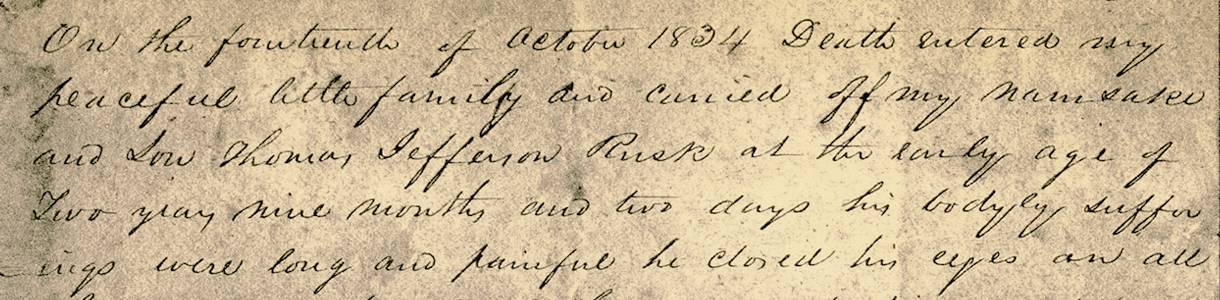
Immediately upon awakening this morning, August 1, I spoke the words “rabbit rabbit” to my dog. I can’t remember how I learned of this superstition—that uttering those two words first thing on the first of any month will assure you good luck for all its days—but I’ve remembered to do it nearly every month for years.
Of course I don’t believe it’s a guarantee of luck. It’s more of a memory test. Deep down I’m more of a rational sort of guy.
That doesn’t mean I don’t believe in magic—there are miracles everywhere. But they come in the form of the births of baby animals, the cries of northern loons, the emergence of plants from seed, or the rare and evocative aroma of petrichor. I don’t do pseudoscience, though. You won’t find tinfoil headwear on my hat rack.
Detail of a letter written by U.S. Lt. Daniel Ruggles from Mexico home to his wife.
The pseudoscience of graphology—a.k.a., handwriting analysis—has been around a good while. Supposedly a trained graphologist can, from simply studying handwriting samples, describe personalities, diagnose mental (or physical) illnesses, even tell the sex of a pregnant writer’s child. No. Nope. Uh-uh. That stuff’s just parlor games.
But having closely studied scores of the letters and journals and diaries of famous (and not-so-famous) people of the past, I do see in penmanship evidence of mood, of age, of temperament. There’s a connection between handwriting and personality. A thoughtful soul might write more neatly. A wallflower might write small. Older hands will tremble more. A hothead might write messily, an egoist large.
Below, for your consideration, is my brief appraisal of the penmanship of a dozen people whom, for one or another reason, I’ve come to know—and whose personalities and handwriting seem to agree. (Click on any image for a larger view.)
Obscure military clerk
Two hundred forty-one years ago, a tiny fraction of the planet’s population knew how to write, and many who did made a living at it—as did the scribe who kept records for the British military at a time of unrest in the American colonies. This particular clerk (whose hand gave rise to Military Scribe) was painstaking, scrupulous, neat, exacting. I imagine a man who spent a lot of time alone at a desk in The Penmanship Zone. Smart, disciplined, tidy. A person who was frugal with ink and paper, and who embraced the mission at hand: of keeping a legible accounting of important matters for future reading.
Timothy Matlack
From historical records we know that Timothy Matlack was a Quaker, an abolitionist, a judge, a soldier—and a master penman whose careful roundhand engrossed perhaps the most famous American document (and inspired American Scribe). He was hired to do the job, a job he clearly took seriously. From his straight, clean, legible script, its compact letterspacing and narrow linespacing, I imagine a serious person, a thoughtful person, a man with strength of mind and strong convictions. Matlack died at 99 years old.
Abigail Adams
Although our first second lady and second first lady had no formal education, her mother (a Massachusetts Quincy) homeschooled her on reading, writing, and ’rithmatic. From her voluminous writings (mostly in the form of letters to her husband, John), it’s clear Abigail Adams was highly intelligent, curious, engaged, insightful, and philosophical. I.e., she was a brilliant thinker, correspondent, confidante. She also had to take care of business back home while her husband was off doing political things. Mrs. Adams’s untidy, disconnected cursive (immortalized in our Abigail Adams font) was clearly dashed off in a hurry, which—along with her creative spelling (not uncommon in those days)—actually makes a lot of sense: here was someone with a message to get across, never mind insignificant details. Her hand suggests a doer, a talker, a communicator, one not so concerned about style as content.
John Quincy Adams
Abigail’s son, John—the sixth U.S. president—was an orator, a diplomat, from youth a traveler (who spoke numerous languages), a politician, a negotiator, an abolitionist, and a famous diarist. For nearly 70 years he kept a daily diary. You can flip virtually through its pages at the Massachusetts Historical Society’s highly engaging website, where right away you’ll notice Adams’s upright, bold, legible, loopy hand (Old Man Eloquent is our interpretation). I imagine John Quincy got some of his communication skills from his mother, but his handwriting seems far more disciplined, more plodding, more firm, more straight-and-narrow. I see some obsessiveness there (nearly 70 years, every day?), and a very slight slant. I see fairness, equality, conscientiousness, formality, and an almost classical attention to detail.
Samuel Clarke
Years ago I found a three-page letter in a local antique shop, a letter written by the pastor of the Congregational Church in Princeton, Massachusetts, appealing for donations for a family whose belongings were lost at sea. (The graceful script, in fact, compelled me to make Schooner Script.) I know of Samuel Clarke, the pastor, only from this single bit of history, now going on 200 years old—but from his handwriting’s consistent slant, its long descenders, its curly loops and airy linespacing, I gather Samuel was careful (i.e., full of care), generous, a little formal, perhaps, but also full of grace and attentive to decorum. I envision sermons partly down-to-earth and partly lofty, with a flourish or two. I can almost hear the music of the choir.
Sam Houston
Hero of the Battle of San Jacinto, first president of Texas, and one of the new state’s inaugural U.S. senators, Sam Houston is one of those larger-than-life characters from history. His handwriting, too, was large (see Houston Pen), with ample space between its lines and characters. Houston seems also to have written swiftly but with a certain grace and aplomb—in keeping with the self-assured leader that he was. (He’s the only person who served as governor of two states, Tennessee and Texas.) His script is forceful, declarative, almost principled. It’s no surprise, perhaps, that he was a friend (and blood brother) of America’s natives when many of his fellow Texans wanted to drive them out of the territory—or that, in vain, he opposed secession, while Texas joined the CSA. And it might be said he also wielded a noble pen.
Thomas Jefferson Rusk
I modeled Texas Hero, our first historical penmanship font, after the handwriting of Thomas J. Rusk, unquestionably a heroic early Texan. I chose his hand because it was typical of the period, comparatively legible, not too fancy or plain. Similarly, Rusk himself seemed regular, dependable, and sober. He moved his family from South Carolina to Mexican Texas, joined his fellow settlers in opposing Mexican hostility, fought bravely under Houston at San Jacinto. Rusk served as the new republic’s first Secretary of War, got more votes than Houston as one of the new state’s first two senators, carried on through various personal losses until the end—when illness and his wife’s death drove him to suicide. A good font, a good man.
Mirabeau B. Lamar
Perhaps the most popular face in our “Texas Heroes” collection, Lamar Pen is an interpretation of the stylish hand of a man with a stylish name, Mirabeau Buonaparte Lamar. Lamar grew up in Georgia as a reader and writer, a poet and newspaper man. He entered politics at an early age—but then lost his wife and brother, and set off to see the world to assuage his grief, arriving in Texas just in time to join Houston and Rusk at San Jacinto. He, too, fought bravely (famously even coming to the rescue of Rusk) and ended up first vice president under Houston. From there things went south, though, as he and Houston clashed on several matters: he ordered attacks against the Cherokee and Comanche, resulting in the massacre of women and children, and opposed the annexation of Texas by the United States. I read in Lamar’s strong, if stylish, hand a man both bossy and emotional, full of righteousness, used to getting his way—albeit someone who also valued higher education. (He is credited for allotting land for school development statewide.)
Emily Austin Perry
As you might gather from her eponymous font, Emily Margaret Austin Bryan Perry—sole heir of her brother Stephen F. Austin—was a brave, determined, spunky, busy pioneer woman. She was also one of the richest women in Texas, and plenty adept at managing her ample fortunes (never mind that men had to sign all contracts, and it’d be generations until women won the right to vote). From her small, distinctive script, which made good use of the margins of a page, you might gather she was frugal, thrifty, and meticulous. Spelling didn’t matter as much as accuracy and clarity. Traveling with her daughter, Mrs. Perry wrote many a missive home to Peach Point Plantation, essentially passing along fresh gossip and listing chores she wanted done. But she was reportedly a beloved matriarch to family and servants (i.e., slaves). And it’s not hard to find in her chatty scrawl a mother hen.
Frederick Douglass
Orator, statesman, abolitionist, Frederick Douglass stands among the most distinguished of Americans. His gift of words, of communicating grand ideas and fostering great social change, is surpassed by few. As you might gather from his handwriting (replicated in Douglass Pen)—a neat, balanced, legible, utilitarian hand. You can see from the even spacing, from the letterforms dense but clear, that here was a person who placed importance on each sentence. The pace of the writing seems even, not rushed, but steady—stately, even. The script seems fair and controlled, neither tentative nor dashed off in anger. Here was someone who placed value on the written word (as he also did photography), and who expected his own to be read and heard and thought about. As they are still, nearly two centuries after he was born a slave on the Chesapeake Bay.
A. Leslie Willson
A. Leslie Willson (my father, diary entry, 1946).
Much closer in time—just 70 years ago—a young man named Leslie Willson kept a daily diary. Maybe not as obsessively as John Quincy Adams, but nearly so. His legible Palmer Method cursive has a consistent slant, with open loops and pointy “p”s. Even if you ignore the words, you can see a sort of artistic evenness in this handwriting style; there’s a clear attention to stroke and placement. The script easy to read and pleasant to look at—important factors when your mission is communication. It’s what you might call “nice handwriting.” This man was a nice man and a communicator. A writer, a poet, a teacher, a translator—and one who wrote pretty much exactly the same on into his 80s. I know, because Leslie Willson was my father. (Dad thought it a hoot that I modeled Professor after his hand.)
Jeanne Willson
Jeanne Willson (my mother, letter from 1993).
Finally, here’s a sample of the handwriting of my mother, then in her late 60s. Mom was an inveterate letter writer, a correspondent extraordinaire. (John and Abigail Adams were among her heroes.) In fact, her handwriting looks a little larger than usual here: she filled pages of smallish stationery with compact lines of her distinctive curly script, although these seemed to loosen up as she grew older. They used to be straighter, too—you can see the sort of ups and downs of age. Mom’s handwriting, while meticulous, is not as legible as my dad’s. (I remember as a kid being unable to read her signature.) But it seems to be that way to encourage study, to ask for a commitment of time and attention. Perhaps written by a quiet-voiced person with a lot of big things to show and tell and say. The script, perhaps, of a historical librarian. (And my mother was a very good one.) I have no plans to make a font of it—perhaps because I love this handwriting most of all.
Miscellanea
» Handwriting in America: A Cultural History. (Penmanship used to be taught differently, depending.)
» Pen to Paper. A collection of the handwriting from the Smithsonian’s Archives of American Art.
» The Nuclear Regulatory Commission gets rid of a 54-year-old handwriting rule…
» …but handwriting ain’t history yet—witness a Bengaluru-based calligraphist’s love of the pen.
» If computers have ruined your handwriting—can it be saved?
» Not everyone hates the idea of writing by hand. (“That’s neat. I’d like to try that someday.”)
» How about calligraphy and crumpets? Handwriting and wine?
Tags: 19th century, Abigail Adams, American Scribe font, antique penmanship, Douglass Pen font, Emily Austin Bryan Perry, Emily Austin font, graphology, handwriting analysis, handwritten letters, historical letters, Houston Pen, John Quincy Adams, Lamar Pen, Mirabeau B Lamar, old handwriting, penmanship, Professor font, Republic of Texas, Sam Houston, Schooner Script, Texas Hero font Posted in Cursive, Graphology, Historical Figures, Old Letters, Penmanship, Ruminations, Science, Specimens | No Comments »
Tuesday, March 8th, 2016
The Palmer Method of cursive script.
I have my hand, and I have my pen. That’s it. —Rev. Robert Palladino
A few days ago I listened to a fascinating Freakonomics Radio podcast called Who Needs Handwriting? In exploring the question of its title, the episode features an interview with Anne Trubek (@atrubek on Twitter), a writer, editor, and former professor who knows a lot about writing by hand. Trubek, who is author of the forthcoming The History and Uncertain Future of Handwriting, essentially argues that kids don’t need to learn penmanship anymore.
It all started, Trubek says, when her son began having problems in second grade—strictly because of his poor handwriting skills. So she wrote an article for Good magazine with the bold and declarative title Stop Teaching Handwriting. It drew a lot of interest.
The Gregg Method of shorthand.
And she has a point: young people of today might well go far in our technology-driven world without so much as ever touching a pen. What use is it for us to continue to embrace what was originally a strictly utilitarian skill out of some romantic sense of self, a part of our individuality?
Then again, the Freakonomics podcast goes on to tell us, research shows that students who take notes by hand recall a lot more of a lecture than those who merely transcribe what’s said via keyboard. So should we perhaps be reviving shorthand (a skill my father practiced, much to my childhood incredulity and awe)? Not so much, turns out—it’s a lot closer to straight keyboarding.
Still and all, cursive script appears to be on the way out—other than as a fine art form. Fewer people over time will be able to read engrossed old documents. Who among us these days, after all, can interpret the early hand-scribblings of, say, a Sumerian skilled at cuneiform?
Rev Robert J Palladino (at Reed College).
On the other end of the handwriting spectrum, you have a celebrated scribe like Rev. Robert J. Palladino, who died a couple weeks ago. Palladino was a Trappist monk when he began learning the skills that made him a master calligrapher who, at Reed College, influenced Apple co-founder Steve Jobs’s design of the Macintosh computer. Jobs credited a Palladino calligraphy course he audited with helping inspire the whole idea of digital typography.
“[The Mac] was the first computer with beautiful typography. If I had never dropped in on that single course in college, the Mac would have never had multiple typefaces or proportionally spaced fonts.”
In a delicious twist of irony, of course, a master with a pen helped further our mass migration over to the keyboard. But there’s something to be said for Father Palladino’s own unwired life—replete with its long periods of thoughtful silence—and his having never once used a computer in 83 years.
[Hang on, time to check Facebook—brb.]
In keeping with my overarching theme here (i.e., handwriting as a sense of self), I’d like now to share another old handwritten document I’ve used as source material for a font I’ve designed. Below are page scans and a transcription of a two-and-a-half-page letter written 18 September 1825 by Samuel Clarke, then pastor of the Congregational Church of Princeton, Massachusetts, seeking donations for the victims of an accident at sea. Inspired by Clarke’s extremely distinctive penmanship, I designed Schooner Script back in 1996. [Note: the boat was in fact a sloop, but Sloop was a script already.]
The Schooner Script letter, page 1.
Princeton Sep. 18. 1825
Christian Brethren,
It is known probably to most of you, that several of our acquaintance and friends, in coming from the State of Maine to this Town, have been exposed to the most imminent danger, and also sustained a considerable loss of property. As their danger and misfortunes have excited much sympathy; and as it is believed to be a Christian duty to do something for their relief, it may be proper, for the correct information of all, to make a short statement of the peril to which they were exposed, and the extent of their loss.
On Saturday the 10. inst, at 12.o.clock, Messrs How, Fay and Cobb with the wives of the two last, and eight other persons, sailed from Camden for Boston in the Sloop Governor. Their passage was favourable until about 8.o.clock on Saturday evening, when the Sloop was struck by another vessel which was apparently in distress, and whose fate is not known. The Sloop was so much injured by the unknown vessel, that she very soon filled with water, which, communicating with lime in the hold, caused her to take fire. Being unable, by the greatest exertion, to save the Sloop, the Captain with his men and passengers was obliged to abandon her, and consign themselves to a small Boat only thirteen feet long and about five wide. our friends were compelled so hastily to leave the Sloop, that they had no time to secure their trunks and clothing—and had they been even able to do this, the smallness of the Boat to which they fled, would not have admitted any additional weight. In this small Boat thirteen feet long, thirteen persons
The Schooner Script letter, page 2.
passed the whole of Saturday night on a boisterous, dangerous sea, some of them destitute of outer garments, and all of them in constant danger of immediate death. It is impossible for us to know, much more to describe their anxiety, their anguish. But a benevolent and merciful Providence watched over, and preserved them, when death appeared inevitable. After having been in this dangerous, distressing situation nine hours, they were discovered on the morn of the Sabbath by another Sloop which immediately came to their relief, and rescued them from impending destruction. In this Sloop they arrived in Boston on Tuesday morning, and on Wednesday were permitted to rejoice in again beholding this their native Town, and receiving the kind welcome and sincere sympathy of their acquaintance and friends.
They desire, with unfeigned gratitude, publicly to acknowledge the goodness and mercy of God which watched over and saved them in the season of extreme peril, which preserved them from the watery element, and which has again restored them to the arms of their brethren and friends—
It may be proper to state that Messrs How and Fay saved their money, with the exception of a small sum lost by Mrs. Fay—but they lost a considerable amount of property in clothing. Our young friends Mr. and Mrs. Cobb lost nearly five hundred dollars, about four hundred of which was in money, and the rest in new and valuable clothing.
There can be no doubt, Brethren, respecting our duty in relation to the misfortune of our friends. While we sympathize with them, we should also assist them in bearing the burdens which a wise Providence has seen fit to lay upon them. It has been suggested by several respectable persons that the easiest and most effectual method of rendering them assistance, would be to request a contribution in each of the religious Societies in this Town on the
The Schooner Script letter, page 3.
next Sabbath. In accordance with this suggestion a contribution will be requested in this place in the afternoon of the next Sabbath, when it is hoped that our charity will correspond with our ability and the necessities of our friends, and manifest for us that we do truly sympathize with them in their sufferings, rejoice in their preservation, and are anxious for their future comfort and happiness—
Samuel Clarke
Pastor of the Congregational Church
in Princeton—
Miscellanea
» Lamentations continue over the decline of cursive—from pen companies, forensic scientists, and autograph collectors.
» Does playing with old-fashioned toys help kids learn better handwriting skills?
» Handwriting analysts go to town on a note left by a guy who found a wallet full of stuff—but didn’t return it all.
» It might be fading generally, but certain local school districts continue to find time for handwriting instruction.
» A thoughtful essay by Dolly Merritt about what penmanship used to mean.
Tags: Anne Trubek, calligraphy, common core, engrossed documents, Freakonomics podcast, Gregg shorthand, handwriting in schools, old handwriting, old handwriting fonts, penmanship as expression, Robert J Palladino, Schooner Script, sense of self, Steve Jobs, the palmer method, vintage penmanship Posted in Cursive, Education, Graphology, Historical Figures, History, News, Old Letters, Penmanship, Science, Specimens, Uncategorized | No Comments »
Wednesday, August 6th, 2014
We’re all familiar with internal conflict. We want to move, we want to stay put. We wish to explore the new, we wish to stick with the familiar. We’d like to have the candy bar, we’d like to eat the candy bar. It’s a wonder we can function at all amid such inner turmoil.
First page of a letter written in 1825 by Samual Clarke
But inside of me, for as long as I can remember, one conflict has overshadowed the rest: a battle between my love of Nature and my fascination with Technology.
As a kid, I went outside to play. I fished for crawdads in the neighborhood creek, pulled toads from storm drains, explored the woods out back of our house for long hours by myself. At night I succumbed to the allure of the miraculous firefly. But I also succumbed to the allure of the “real” world—a world of radio and television, rock-n-roll and fast cars, space flights and assassinations and crazy foreign wars. The “real” world was full of interesting people (e.g., girls). And the “real” world had a summer school typing class.
Little did I know it then—I truly dreaded going—but that typing class proved more useful than any other I took in high school.
Before long I had my own electric typewriter, was cruising along at sixty words a minute, then eighty, then a hundred. After college I moved to Maine—a place of woods and shores and birds and seasons—where I ended up a radio journalist, then a newspaper man, then a magazine editor wrangling a silent computer keyboard. Somewhere along the way, I lost my knack for writing by hand.
I recall spending long hours as a youth perfecting my penmanship. Eschewing the boring cursive I’d learned in school, I began to print my words in small, neat letters. I changed my “e” to look like a backwards “3” and gave my lowercase “a” a second story. And I wrote a lot—lists and journals and school papers and drafts of college essays. I wrote all my personal letters by hand. Occasionally I’d write so long and hard that I’d end up with a wicked case of writer’s cramp, a pain I well remember to this day.
Then the Apple Macintosh came along, and all that changed.
I just couldn’t quit that little Mac. I learned word-processing software, utility software, fancy page-layout software, even a few programming applications. And, OK, yeah, I played computer games. Of course I interspersed these computer sessions with outdoor hikes or birding excursions, or I’d go swimming or skating down at the quarry pond. (I have an inner battle raging, after all.) But invariably I’d return to the keyboard, whose magic connected me to a new kind of “real” world, a world offering fresh puzzles, instant telecommunication, and digital imaging powers I had no idea existed.
And that’s how—through what now seems an implausible series of events—I became a type designer.
In retrospect, it seems both the height of irony and perfectly appropriate that my specialty would be handwriting fonts, with a particular focus on historical penmanship. Because in the twenty years since, technology has streamlined written communication in such a way that we no longer have to hunt around for a pencil or pen. Cursive handwriting is rarely taught in schools anymore—heck, a lot of young people have plenty of trouble even reading it. New generations will become more proficient at thumbing the tiny screens of smart devices than writing a simple thank-you note by hand.
In those same twenty years, I’ve read countless letters and journals from the 1700s and 1800s. Much of the time I have handwriting on the brain. And I think a lot about what we’re losing as our ability to wield a pen fades slowly away.
First, there’s the guilt of hardly ever writing by hand myself anymore. (Hand-cramp seems to come in a matter of seconds these days.) Worse, I worry that my type designs might somehow be contributing to the loss of pen and ink. That’s silly, of course, because that loss is likely inevitable no matter what I do—but it’s also more significant than most people realize.
For one thing, recent studies suggest that learning to write in loops and curves is beneficial to our brains. But from where I sit, our greatest loss might be a certain miraculous insight the handwritten page gives us into the characters and personalities of the people who put those words there in the first place.
Detail of Col. William B. Travis’s letter from the Alamo.
As graphologists will attest, a lot more gets communicated from a handwritten page than just thoughts put into sentences. In a flash we can recognize the hand of friends and loved ones—the little quirks and peculiarities of their scribbles. But beyond even these, if you look closely enough at the pressure and slant and size and flourish, you can see inside the minds and hearts and histories of the ones who wielded the pens. You can tell if they were angry or sad, determined or resigned, courageous or desperate or ill.
I think, for instance, of Col. William B. Travis’s famous letter from the Alamo, whose closing phrase “Victory or Death” he’d so deliberately underscored three times.
Alas, it seems that—barring an apocalypse—we’ll have only the past few short centuries of this intimate phenomenon to wonder at and admire.